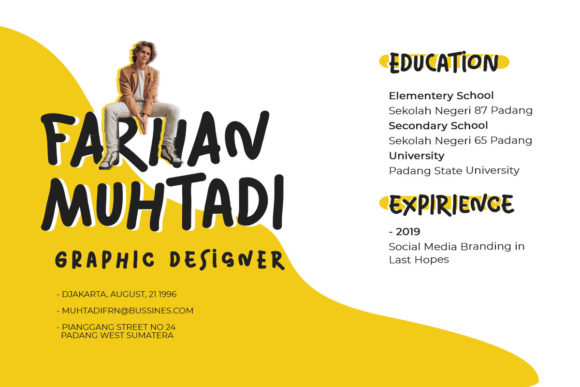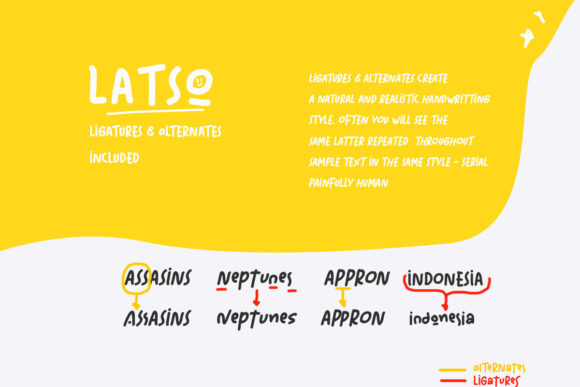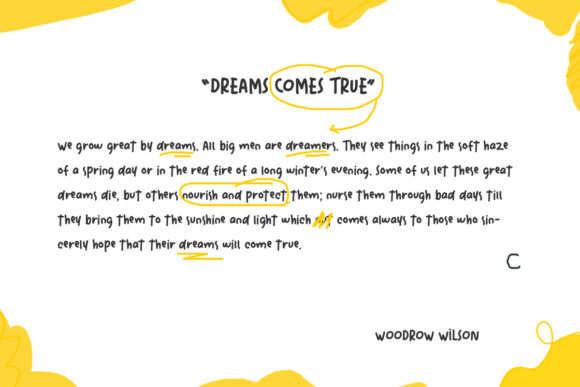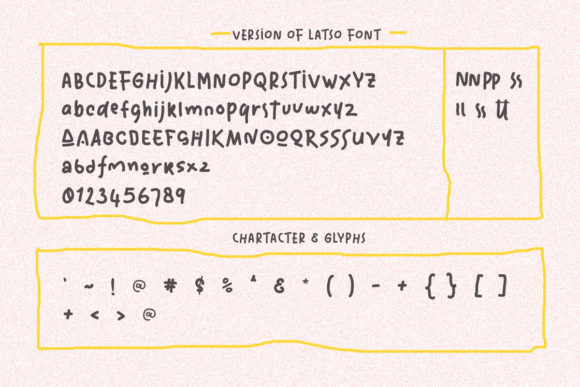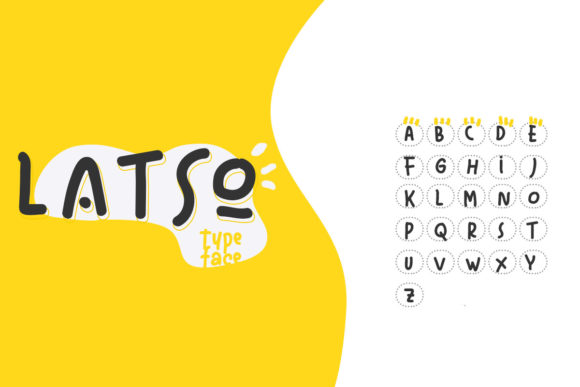
Introduction to Latso Font
Have you ever found yourself staring at a blank page, struggling to bring your creative vision to life? The blank slate can be intimidating, but what if you had the perfect tool to spark your imagination? For designers and artists, finding the right font can be the difference between a mediocre and a mesmerizing design. That’s where the Latso Font comes in – a quirky and adaptable handwritten font that’s about to become your new best friend.
Key Features of Latso Font
- Its unique, modern design makes it perfect for a wide range of creative applications, from branding to typography.
Honest Review: Latso Font
As a designer, I’m always on the lookout for high-quality design resources to elevate my creative projects. Recently, I stumbled upon the Latso Font, and I’m excited to share my honest review with you.
Here are some key features of the Latso Font:
- Clean and modern aesthetic
- Perfect for creative projects that require a professional look
While the Latso Font is a great addition to any designer’s toolkit, there are a few limitations to keep in mind:
- No bold or italic font styles available
- Not suitable for projects that require a bold, eye-catching font
⚠️ Despite these limitations, I still highly recommend the Latso Font for designers who need a high-quality, professional font for their creative projects.
Introduction to Latso Font
Tips for Getting the Most Out of Latso Font
To get the most out of Latso Font, use it in conjunction with other high-quality design elements. Experiment with different font sizes, colors, and arrangements to create a unique and eye-catching design.
Latso Font is commonly used in branding, marketing materials, and digital design projects. It’s also a popular choice for social media graphics, presentations, and documents.